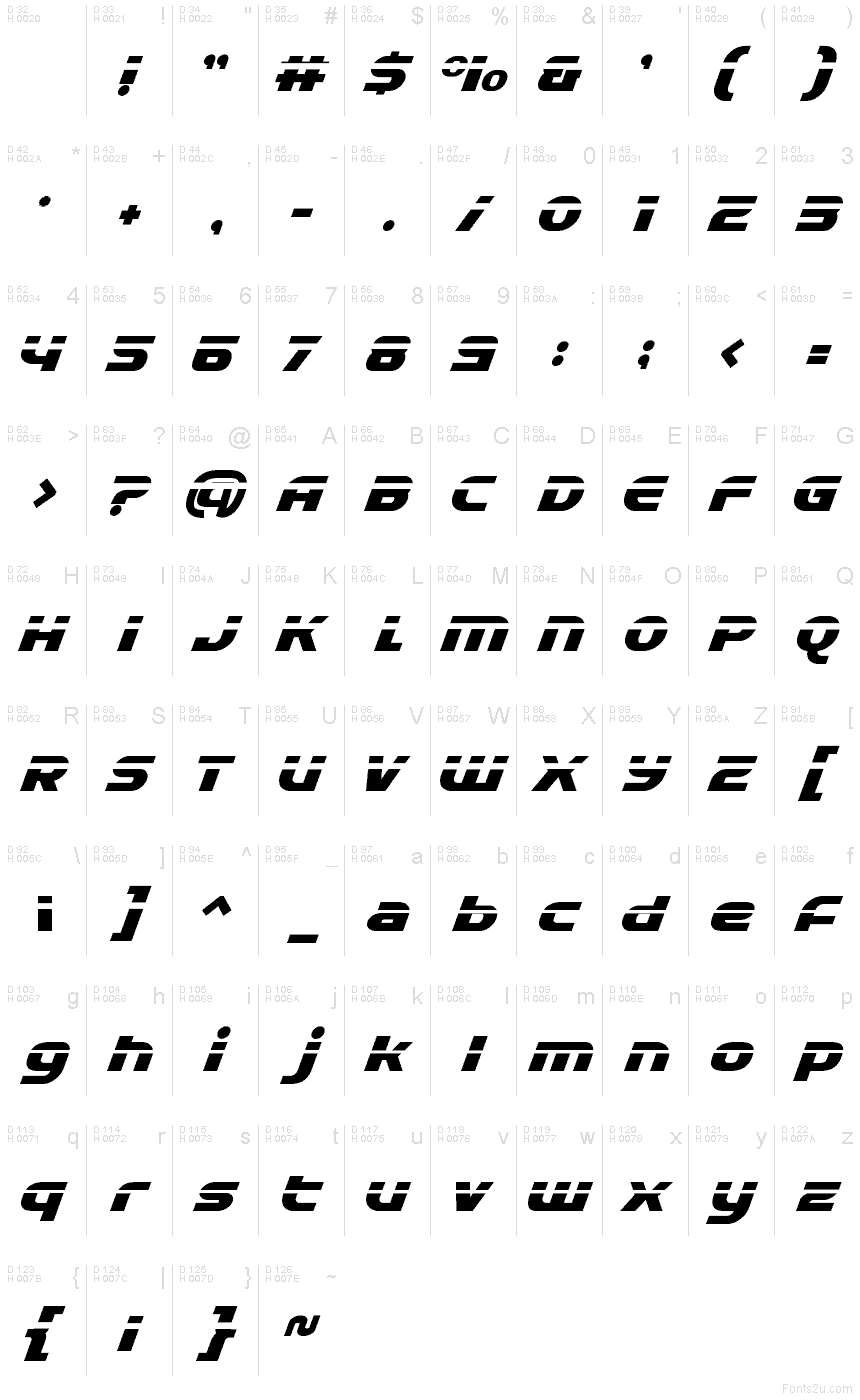
Rapido Racers Two
Rapido Racers Two font by PutraCetol Studio is a sleek and futuristic display typeface with a bold, expanded look. Its italicized and streamlined design exudes a sporty vibe, making it ideal for dynamic projects seeking a contemporary feel. This free techno display font strikes with cutting-edge style perfect for grabbing attention.
Use it freely in race event posters, E-sports logos, branding projects, video games headlines, advertising materials, print packaging designs or invitations. Websites UI & UX banners as well as mobile apps are also an excellent place for its elegant impact!